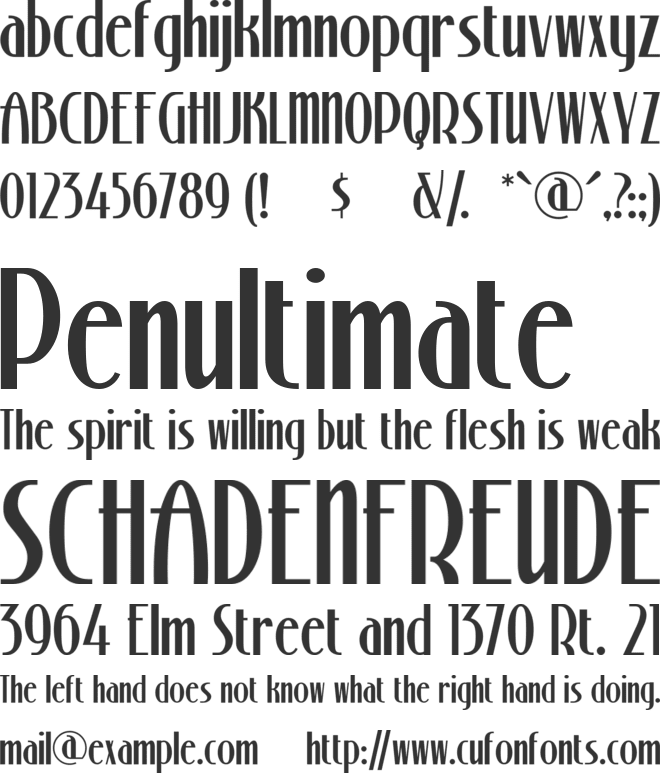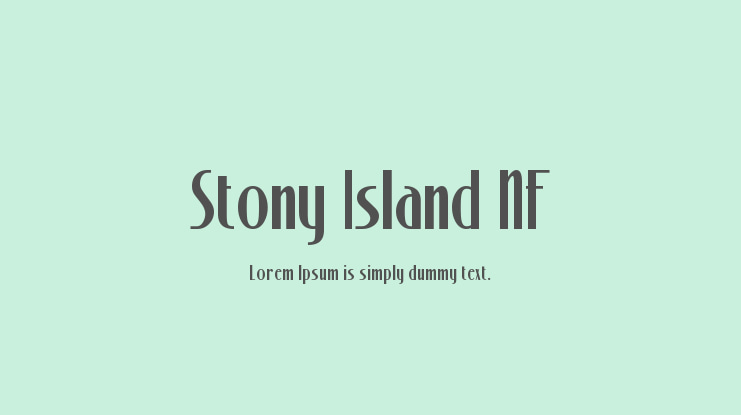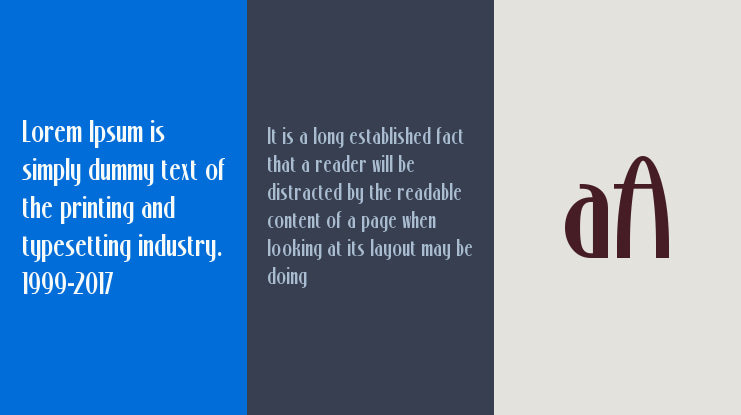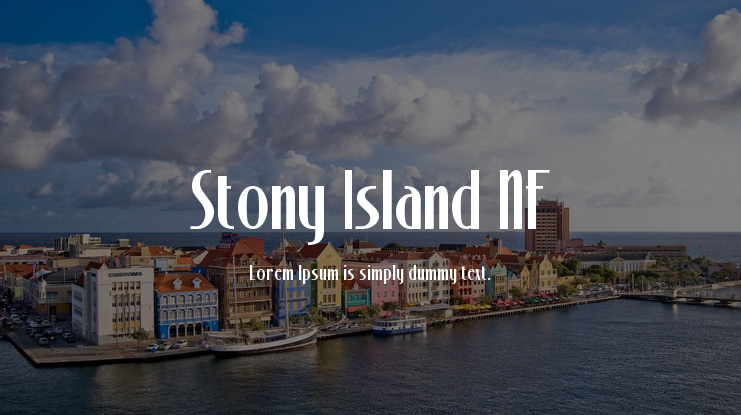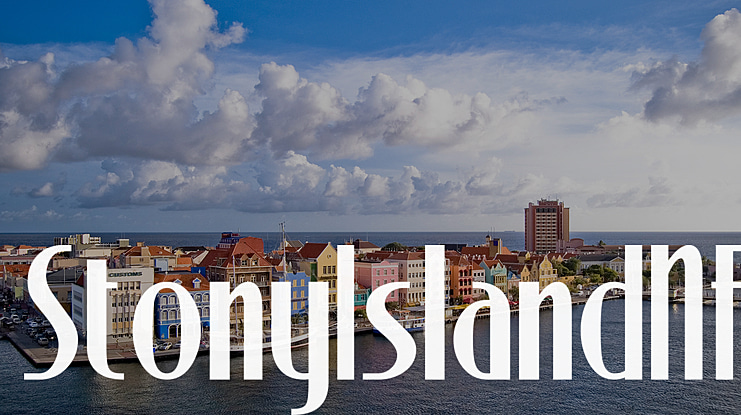
Stony Island NF Font
Nick Curtis
An adaptation of a font called Chicago Modern, designed by lettering artist Alf Becker, whose designs graced the pages of Signs of the Times magazine from the late 30s into the 50s. Named after a street in the Windy City near where I was born.